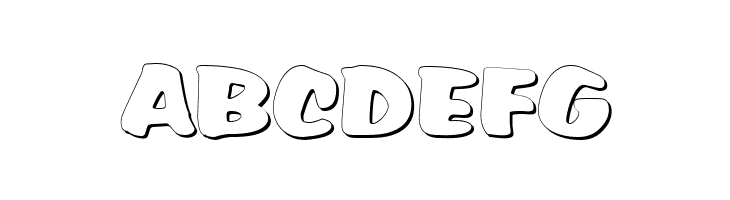
aaron Font
aaron Description
This playful and casual handwritten font exudes a sense of whimsy and creativity. The characters are slightly irregular, giving it an authentic, hand-drawn feel. The uppercase letters are bold and slightly tilted, while the lowercase letters maintain a consistent flow with rounded edges. Numbers and special characters are crafted with the same playful style, making them perfect for informal and creative projects. The overall appearance is friendly and approachable, ideal for designs that require a personal touch.
| Overall Style | Casual |
| Use Case | Headlines, Logos, Invitations |
| Proposed Projects | Ideal for greeting cards, children's books, playful branding, and DIY projects. |